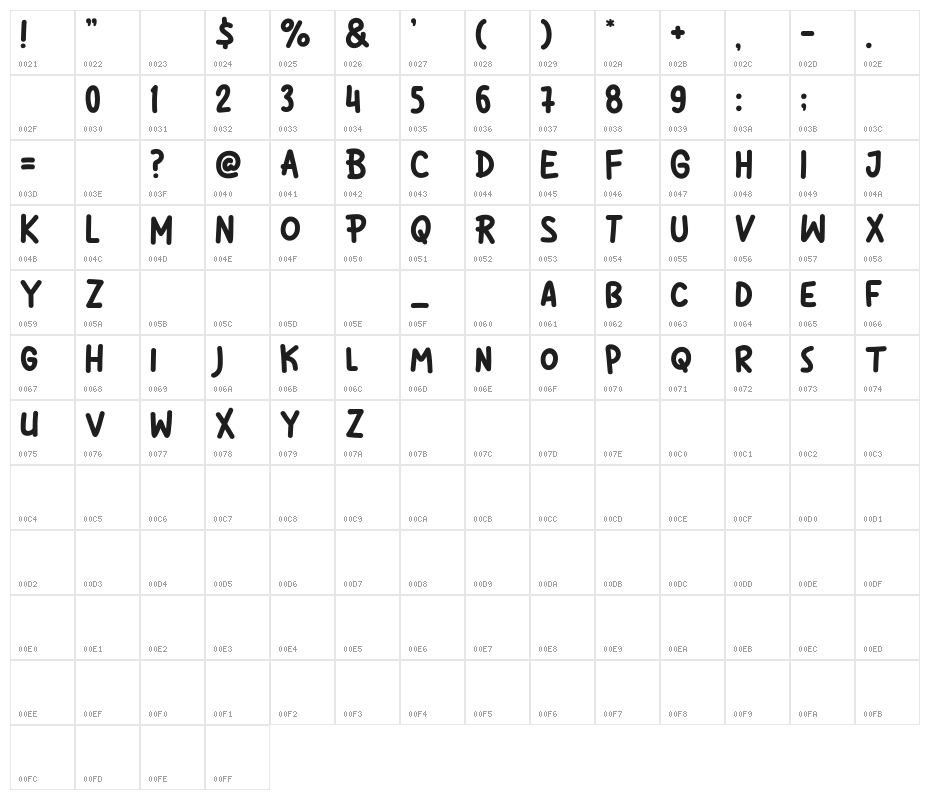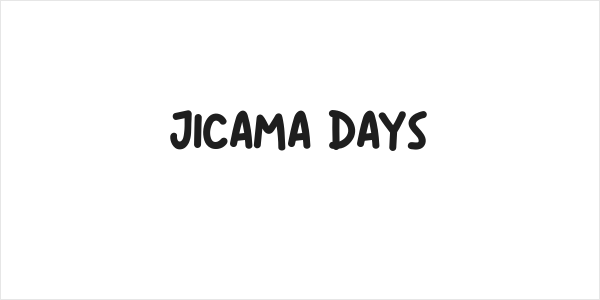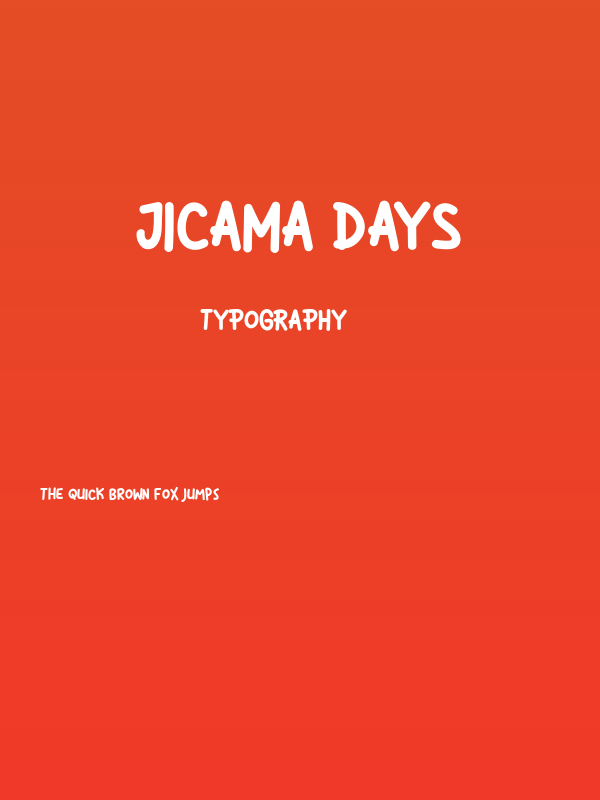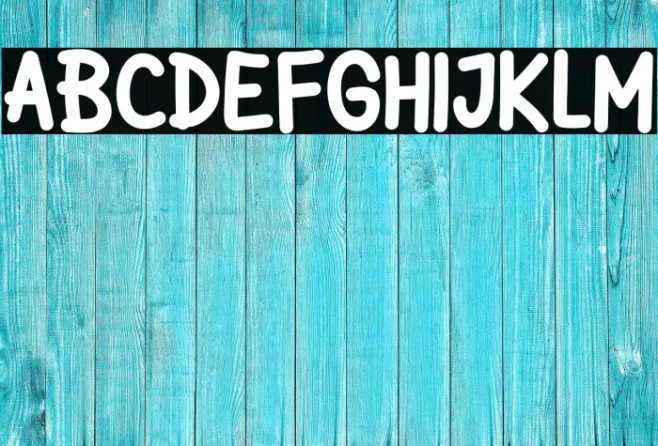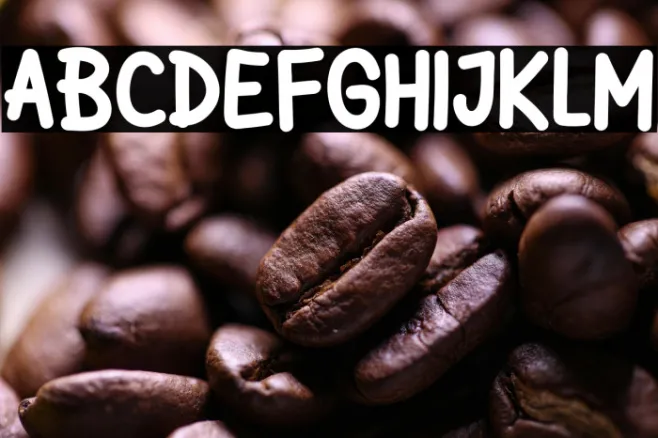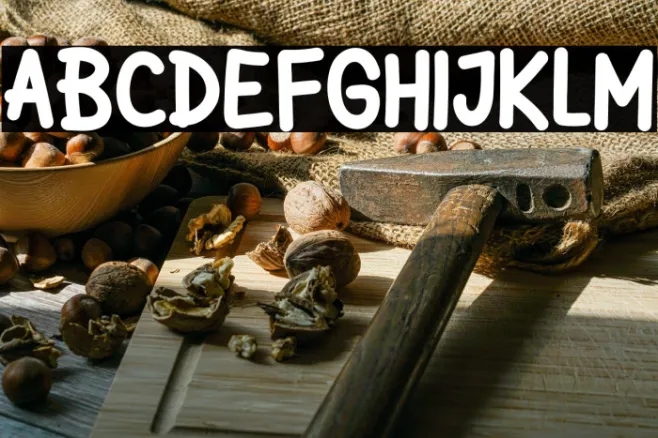
Jicama Days Font
Jicama Days Description
This playful and bold font features rounded, thick strokes that give it a friendly and approachable appearance. The characters are slightly irregular, adding a hand-drawn feel that enhances its casual and informal style. The uppercase and lowercase letters maintain a consistent weight, contributing to a cohesive look across the alphabet. The numerals and special characters are designed to match the overall aesthetic, ensuring versatility in various applications. Its boldness makes it stand out, while the rounded edges soften its impact, making it suitable for a wide range of creative projects.
| Proposed Projects | Ideal for children's books, playful branding, greeting cards, and informal posters. |